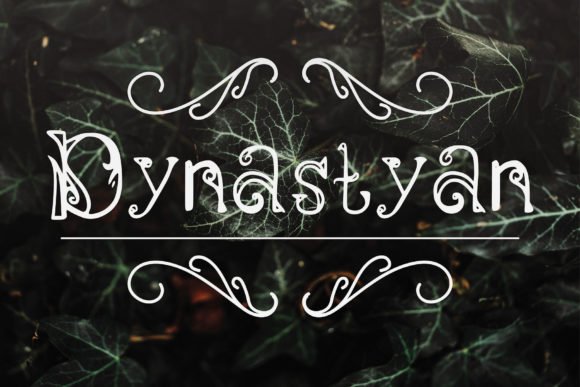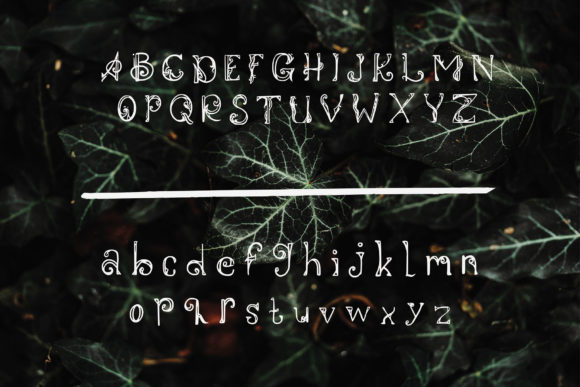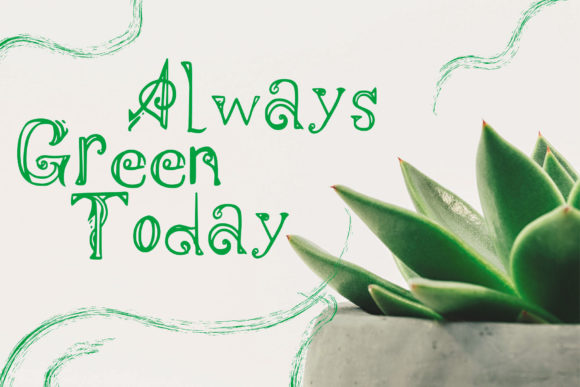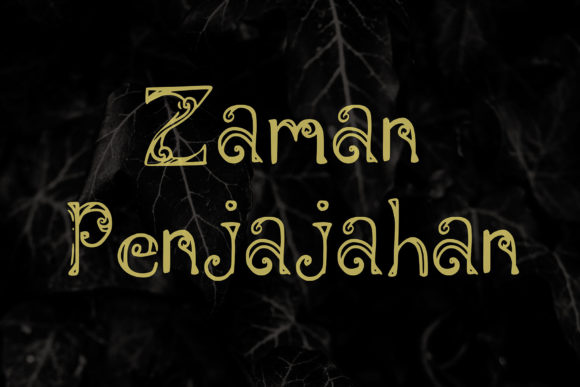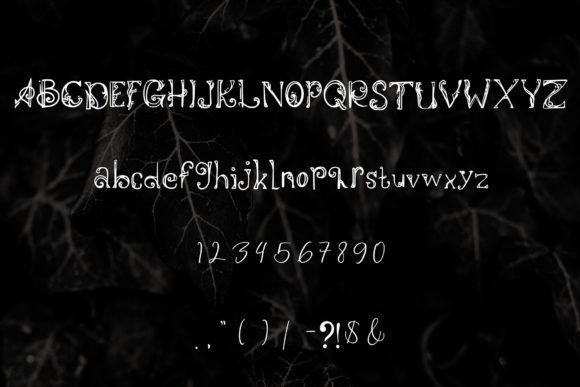
Unleashing the Power of Typography: Discover Dynastyan Font
Have you ever found yourself stuck in a creative rut, staring at a blank canvas, wondering what design elements will bring your vision to life? That’s when the magic happens – a spark of inspiration strikes, and you’re off on a wild ride of imagination and experimentation. For designers, this moment is what makes it all worth it. And, for those who crave unique and attention-grabbing typography, there’s one font that stands out from the rest: Dynastyan Font.
This exquisite display font is a game-changer for designers looking to add a touch of sophistication and elegance to their projects. With its intricate details and versatility, Dynastyan Font is the perfect tool for creating visually stunning designs that leave a lasting impression. Whether you’re working on a high-end branding project, a fashion campaign, or a digital product, Dynastyan Font is an invaluable asset that will elevate your designs to new heights.
- Unique Characteristics: Includes a wide range of ligatures, swashes, and ornaments for a luxurious and sophisticated look
Dynastyan Font Review
As a designer, I recently had the chance to work with the Dynastyan font, and here’s my honest review.
✨ What works well:
- The font has a unique, luxurious feel to it that’s perfect for high-end branding or luxury product design.
- The letterforms are well-crafted and detailed, making it a great choice for logos or title treatments.
- The font is highly versatile and can be used in a variety of contexts, from modern to classic designs.
⚠️ Limitations:
- The font may be a bit too ornate for certain projects, and the intricate details may be distracting in certain contexts.
- The font family is relatively small, with only a few weights and styles available.
- The font may not be the best choice for text-heavy content, as the letterforms can be a bit too decorative for large blocks of text.
Overall, I think the Dynastyan font is a great choice for designers who want to add a touch of luxury and sophistication to their projects. However, it may not be the best fit for every project, and designers should carefully consider the font’s limitations before making a decision.
Alternatives to Dynastyan Font
Monserrat is a sans-serif font designed by Julieta Ulanovsky. It’s a great alternative to Dynastyan Font for digital products, logos, and headlines. Montserrat has a similar geometric feel but with a more modern and minimalist approach. It’s also highly legible and comes in multiple weights.
Open Sans is a popular sans-serif font designed by Steve Matteson. It’s an excellent choice for body text, as it’s highly legible and readable even at small font sizes. Open Sans is more rounded and friendly than Dynastyan Font, making it suitable for a wide range of applications, including websites, mobile apps, and print materials.